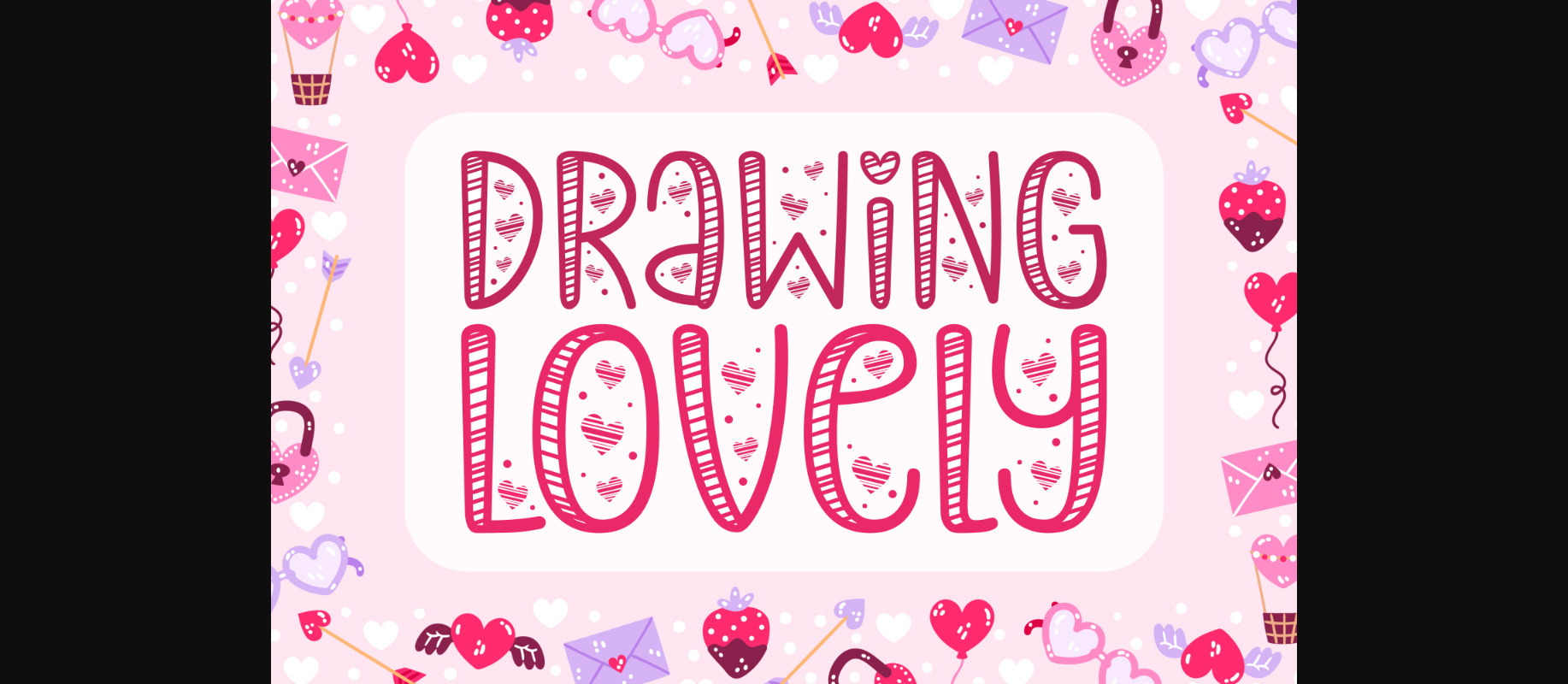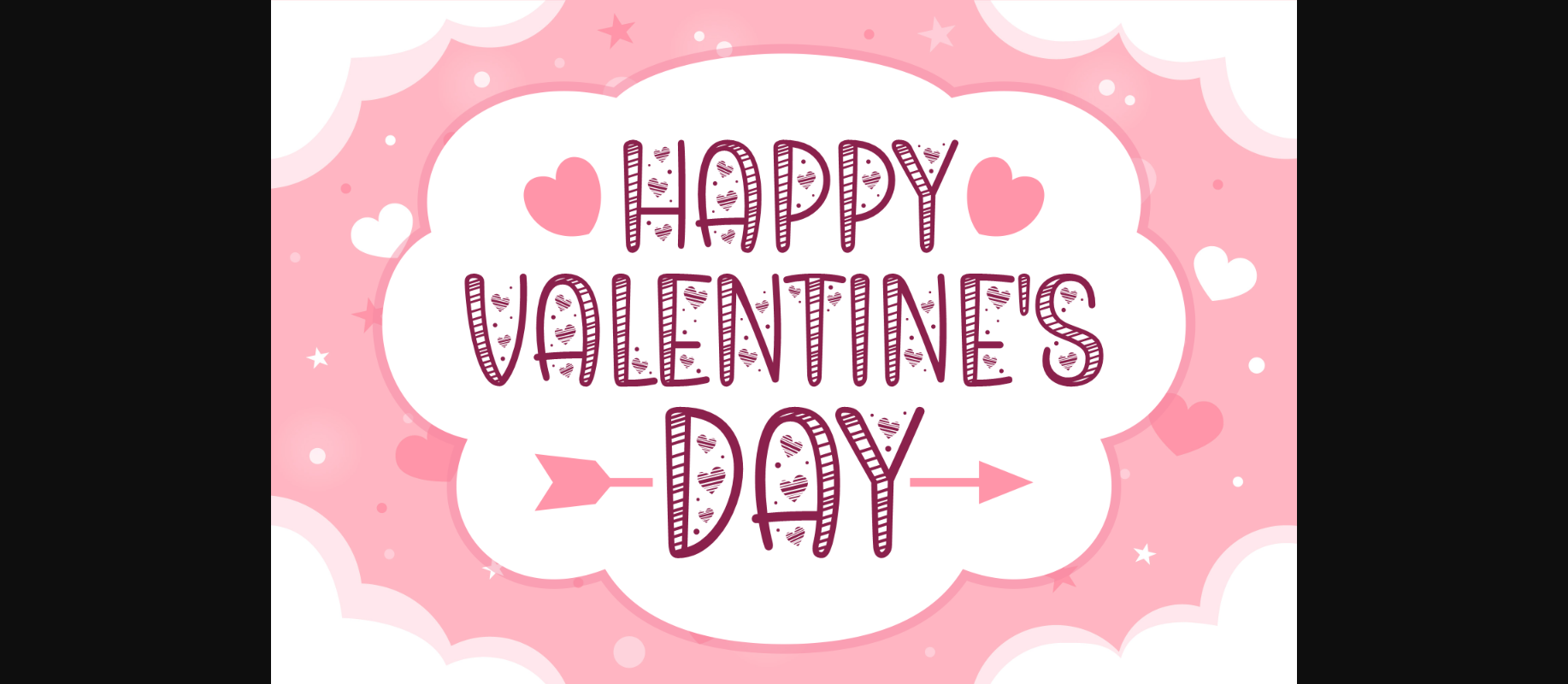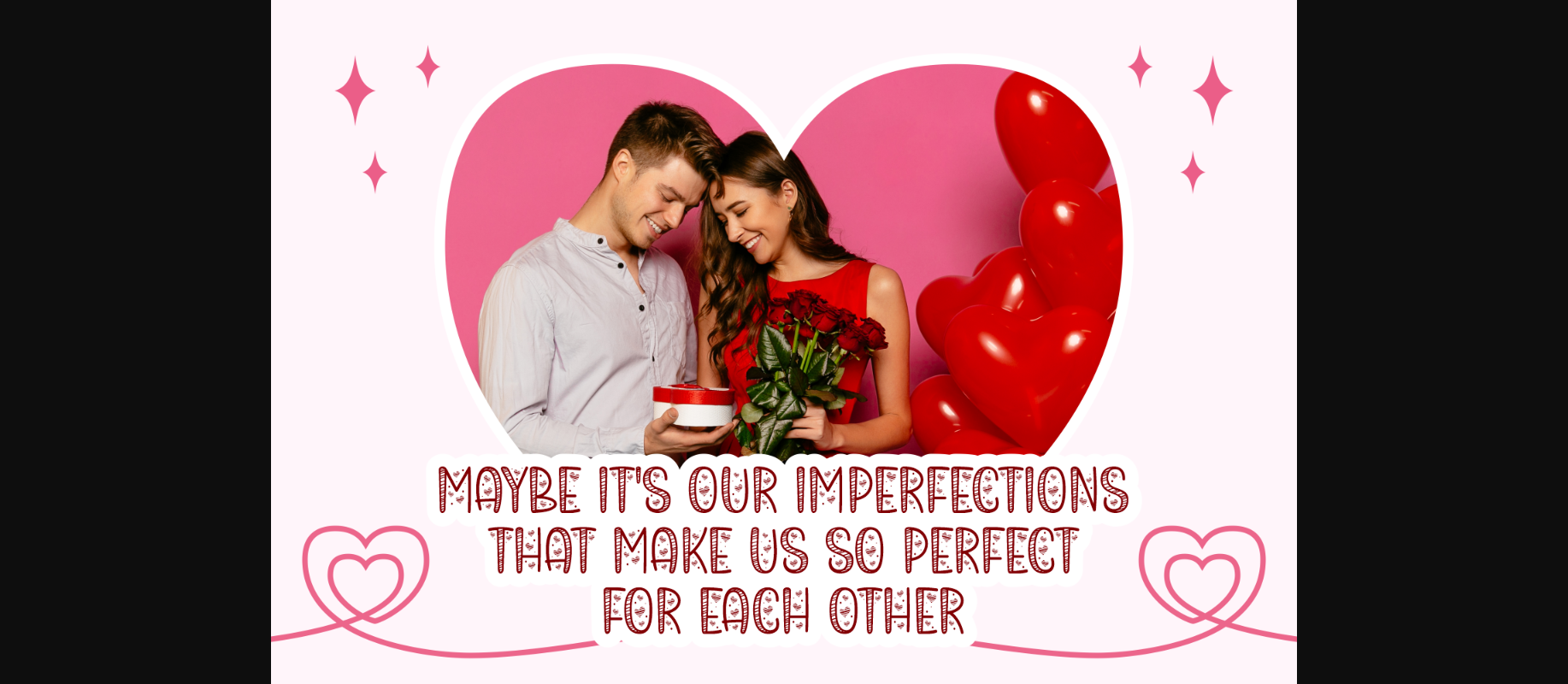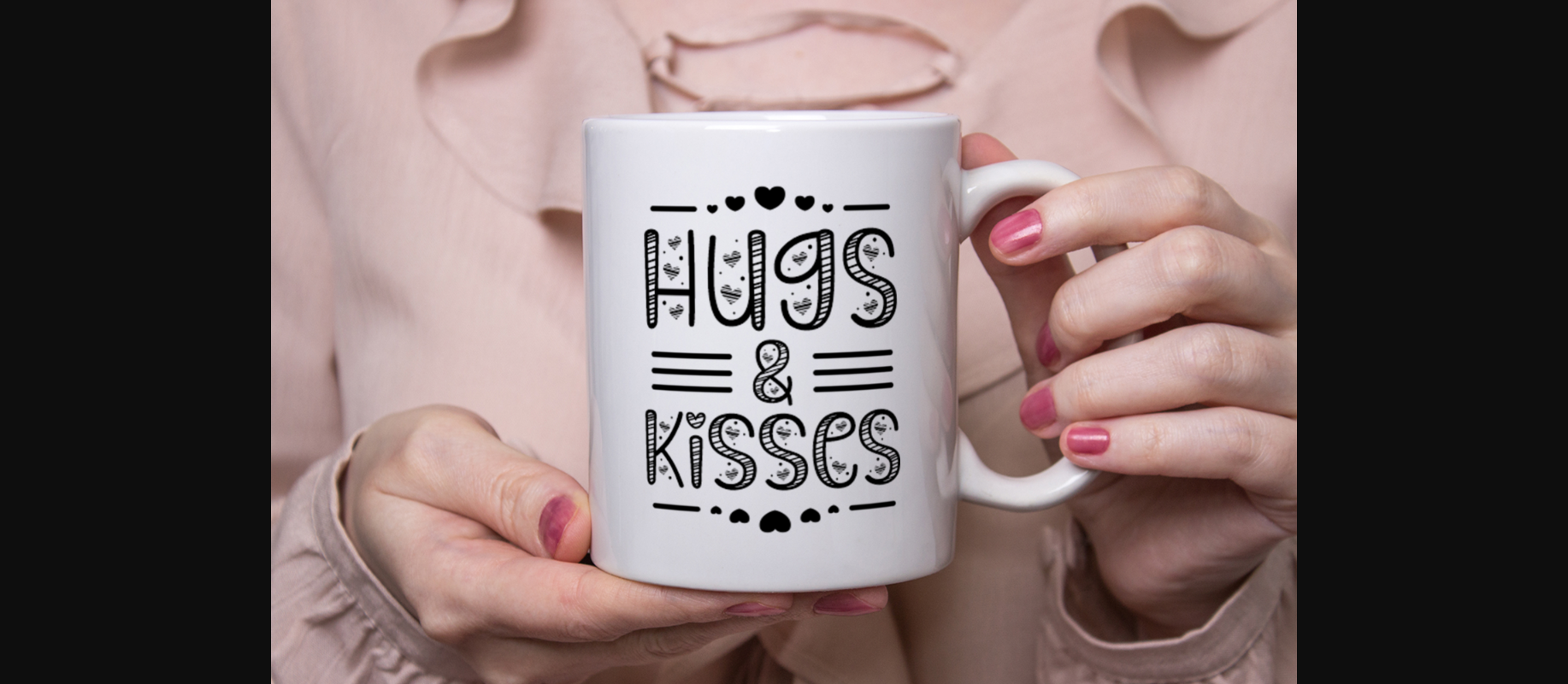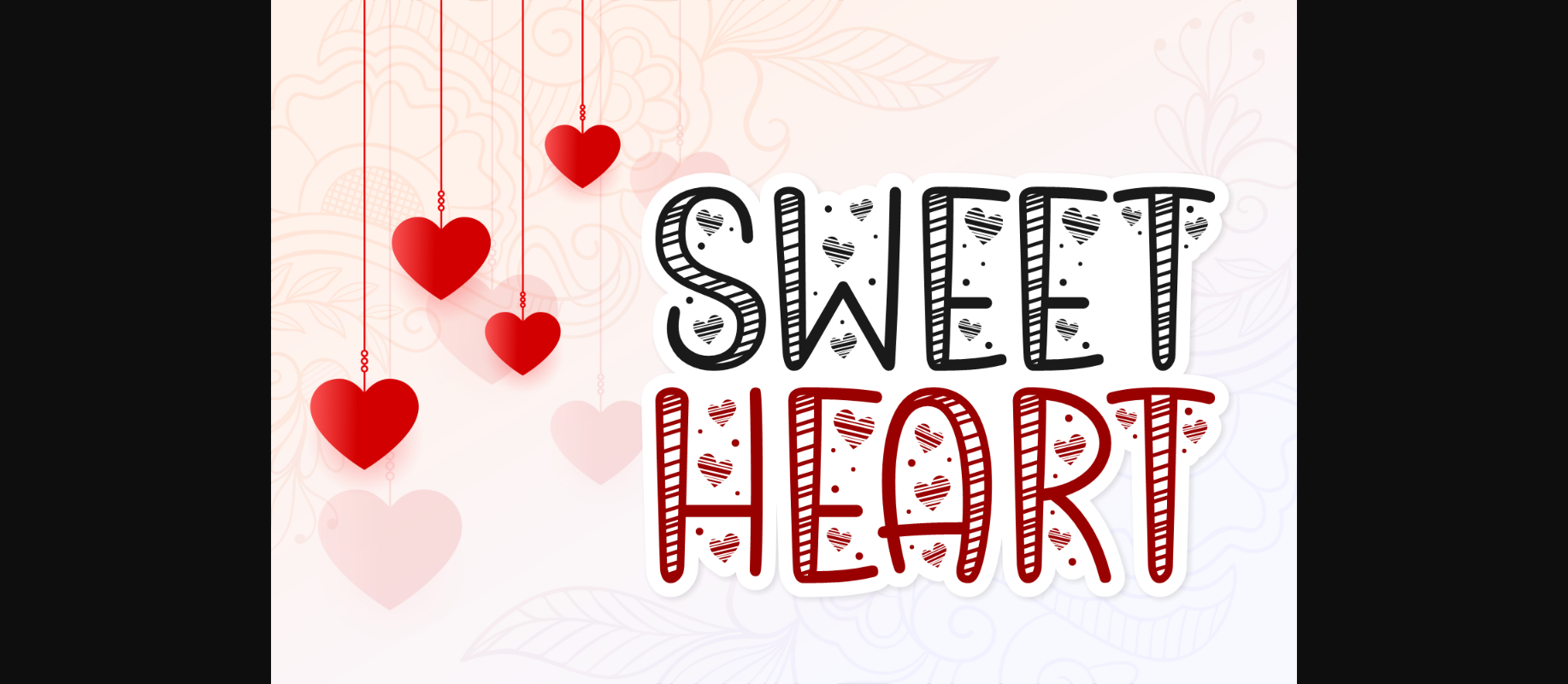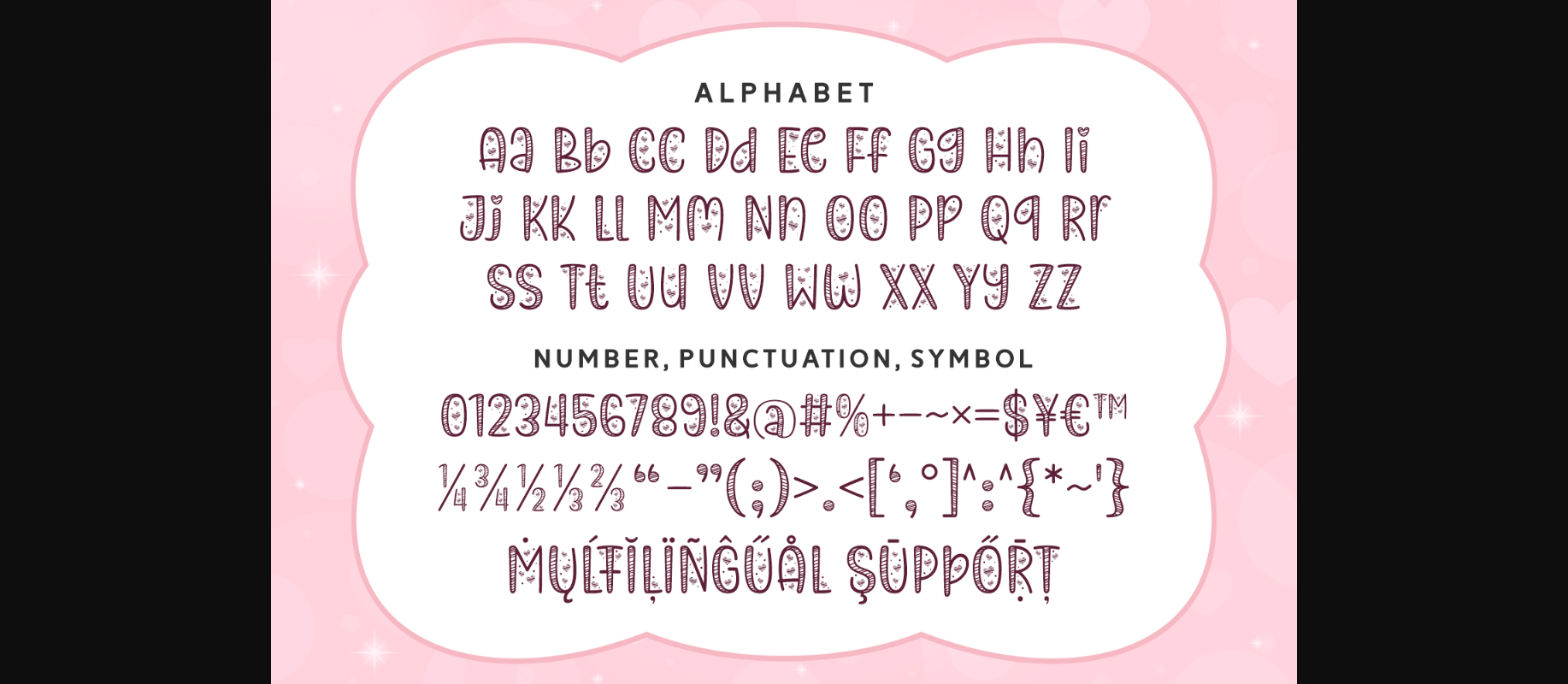
Drawing Lovely Font
About Drawing Lovely Font
Drawing Lovely is a sweet and captivating decorative font. Add charm and cuteness to any typography with this lovely typeface that features stripes and little heart elements. It is perfect for Valentine’s day projects, greeting cards, invitations, fabric prints, gift-making, and many more.